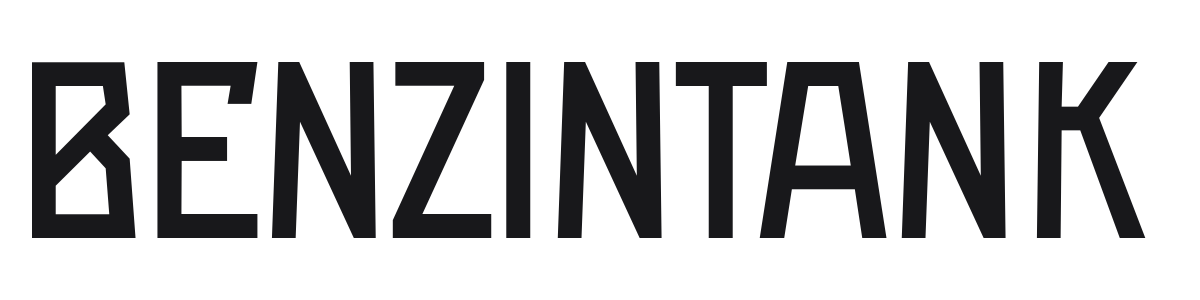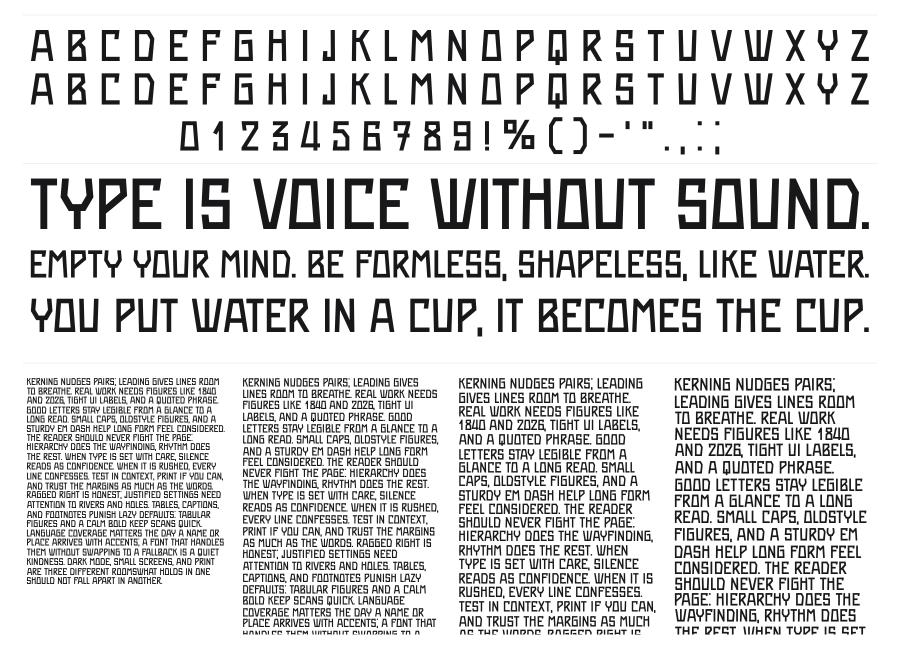
Benzintank
Benzintank is a heavy angular display font with a raw, industrial edge drawn from early 20th-century constructivist lettering. Each character is built from sharp diagonal cuts and flat terminals, evoking hand-cut stencils or garage signage. It carries real attitude at large sizes, especially in automotive, music, and streetwear contexts.